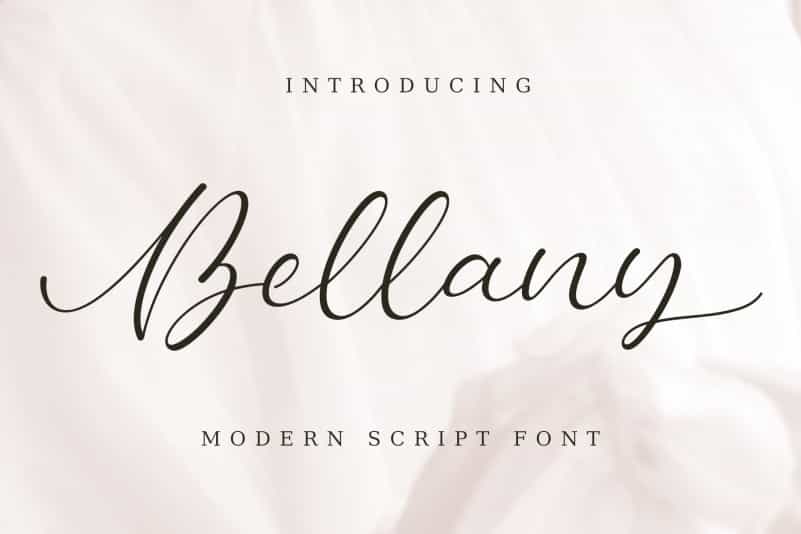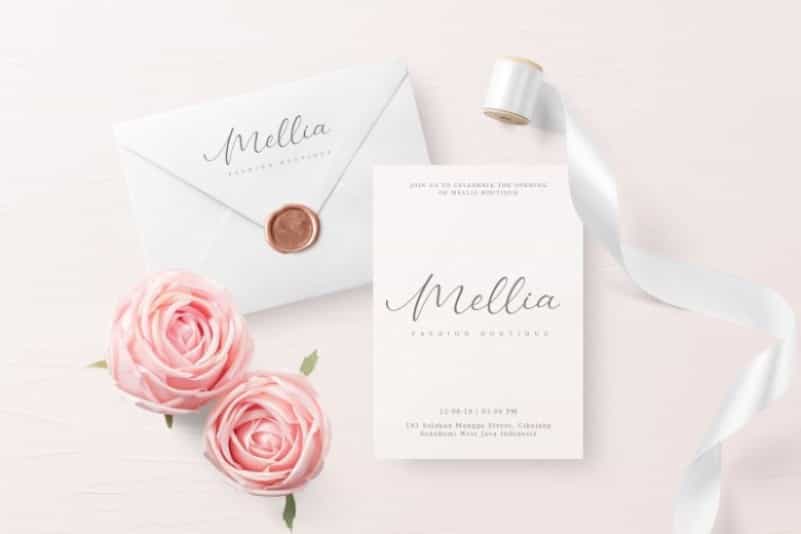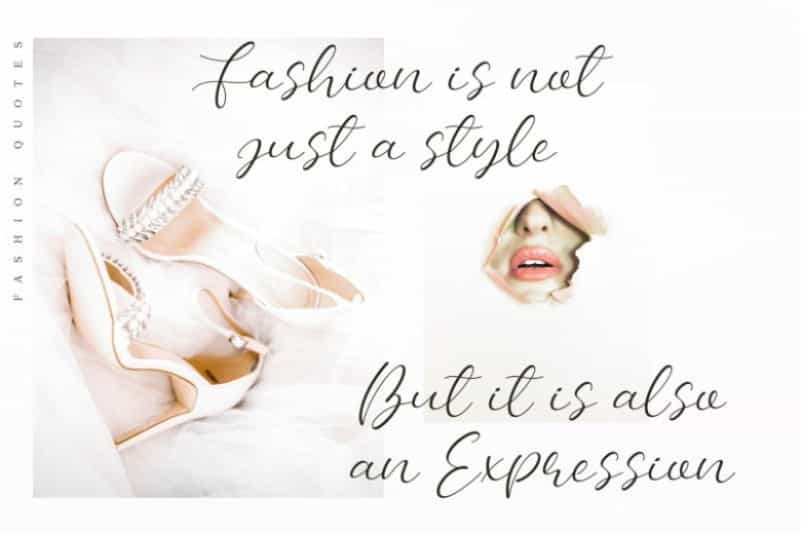
Bellany is a contemporary and classy script font which can be used for boutique logos, Business cards, Invitation card, Wedding invitation, magazine cover or fashion posters.